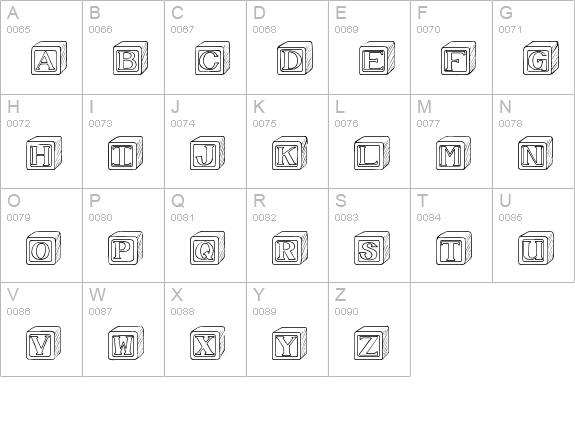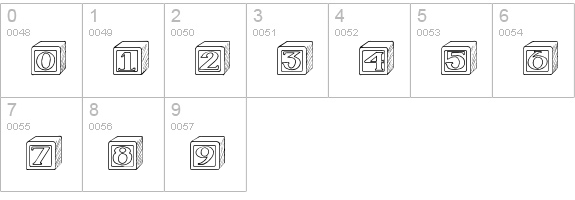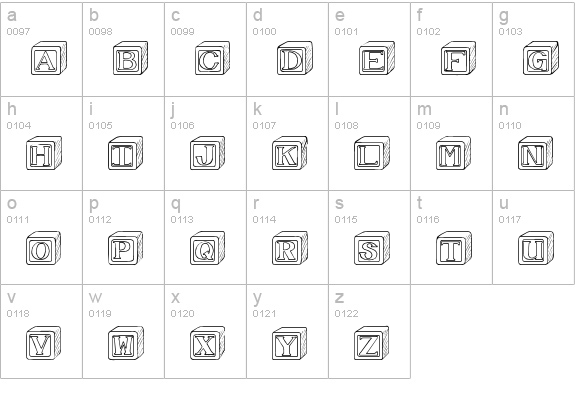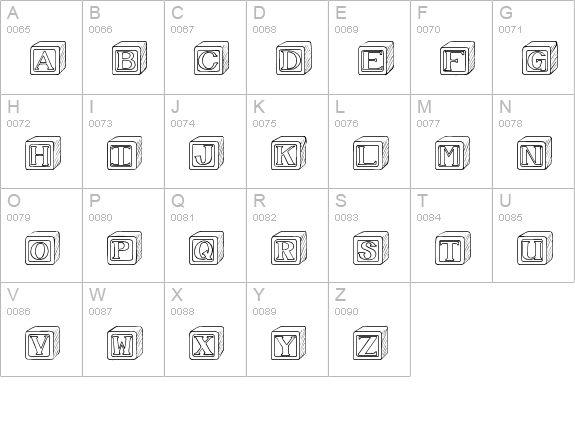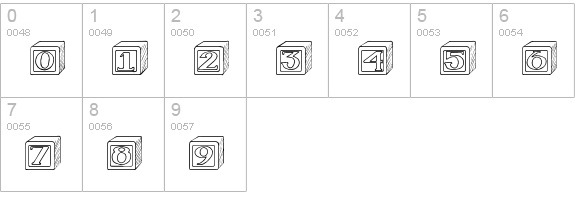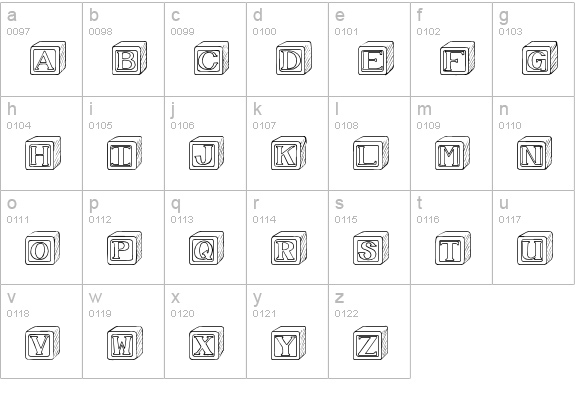
SBC Baby Blocks Font Details
Introducing SBC Baby Blocks font, a delightful and whimsical typeface that will bring a touch of playful charm to your designs. Created with utmost care and attention to detail, this font is perfect for adding a touch of innocence and joy to any project. Designed with a unique combination of rounded edges and chunky letterforms, SBC Baby Blocks captures the essence of childhood, making it ideal for children's books, nursery decor, baby shower invitations, and more. The smooth curves and sturdy construction of each character ensure legibility and readability, while adding a touch of warmth and friendliness to your text. SBC Baby Blocks font is available for free download exclusively at FontsMarket.com. Yes, you read that right – it's completely free! Simply visit FontsMarket.com, and with just a few clicks, you can have this delightful typeface at your fingertips, ready to be used in your next creative venture. With its extensive character set, including both upper and lowercase letters, numbers, special characters, and punctuation marks, SBC Baby Blocks font offers versatility and flexibility for all your design needs. Whether you're designing a logo, creating a poster, or crafting personalized stationery, this font will add a touch of whimsy and charm to your creations. So why wait? Embrace the innocence and joy of childhood with SBC Baby Blocks font. Download it for free today at FontsMarket.com and let your creativity soar as you incorporate this delightful typeface into your designs.